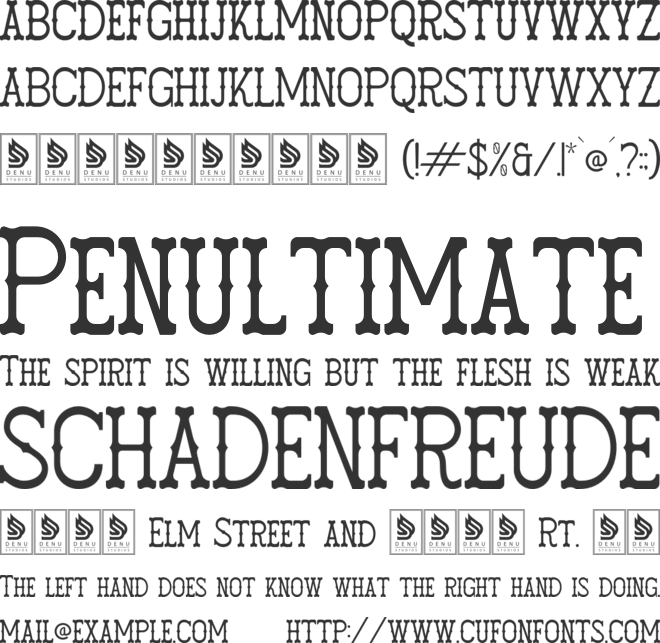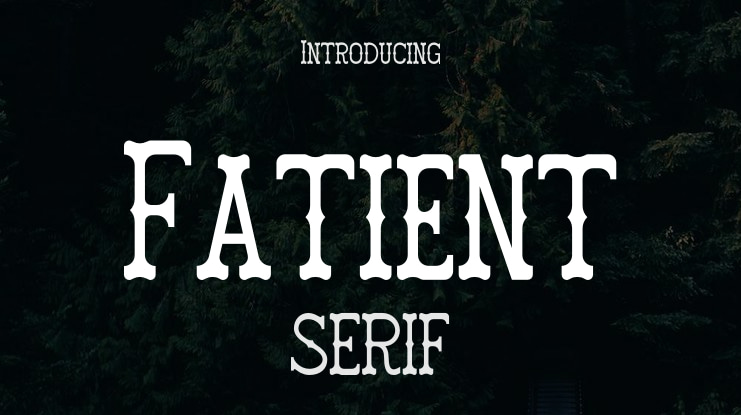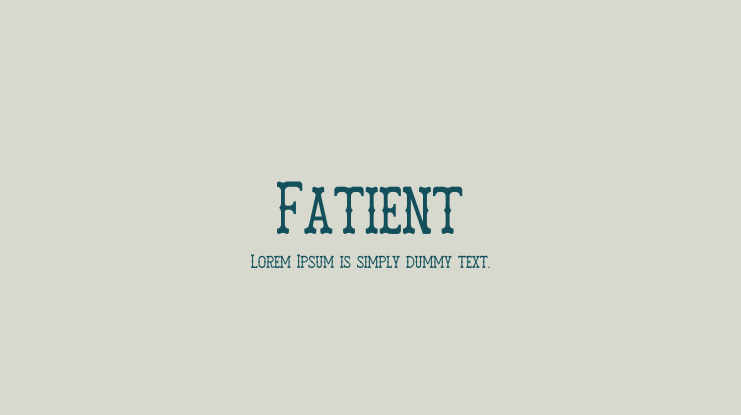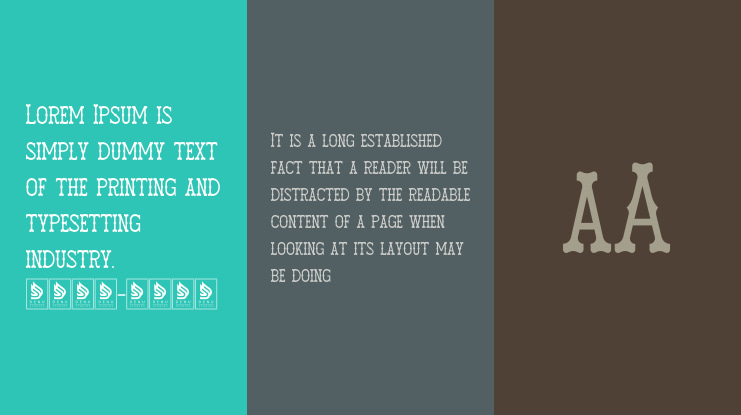
Fatient | Western Slab Retro is a versatile font suitable for various projects such as logos, branding, homeware designs, product packaging, apparel, posters, and more that require a Western Slab Retro style.